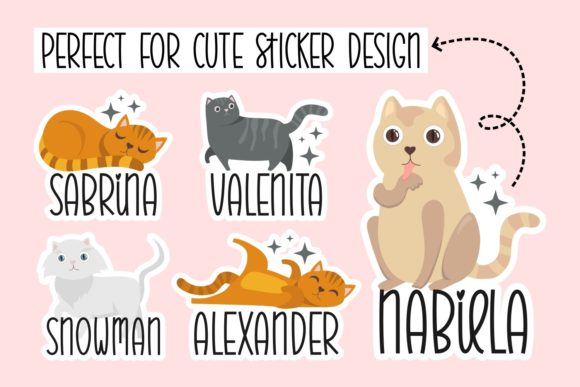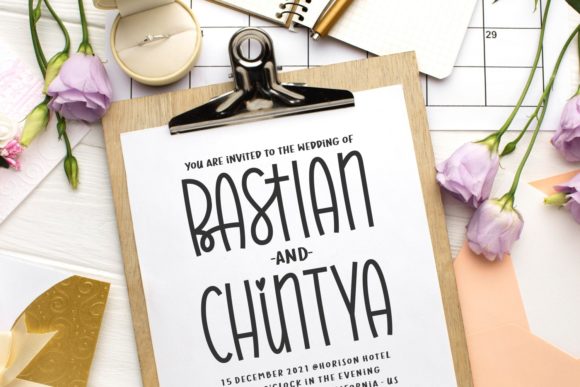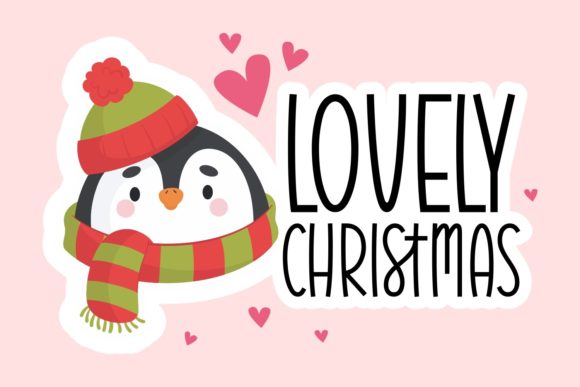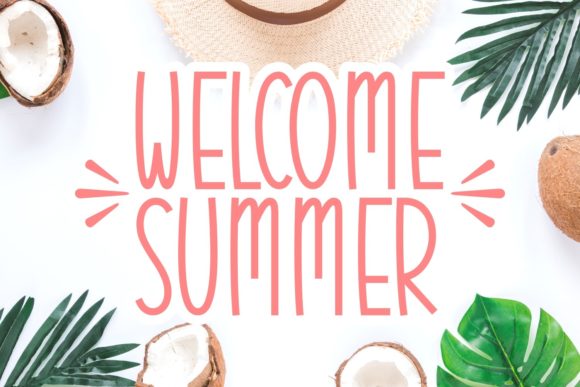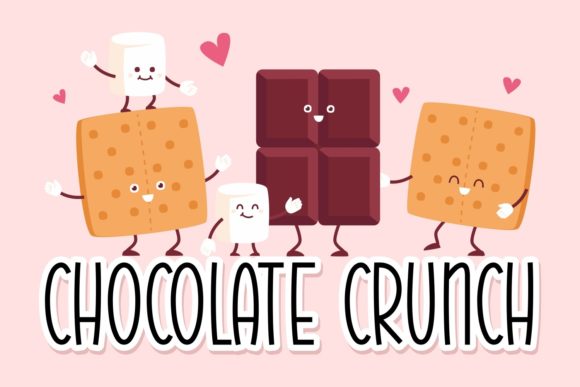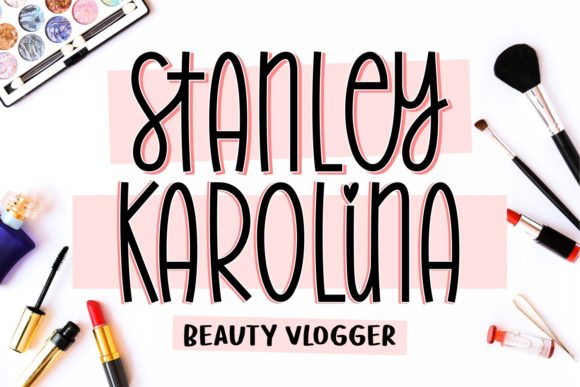
The Austin Bailey Font: A Simple yet Powerful Design Tool
I still remember the design project that led me to discover the Austin Bailey font. I was working on a branding project for a new coffee shop, and I was struggling to find the perfect font that would capture the friendly and approachable vibe of the brand. The client wanted something simple, yet elegant, and I was determined to deliver. That’s when I stumbled upon Austin Bailey, a simple and thin lettered handwritten font that instantly resonated with me.
So, what makes Austin Bailey so special? Here are a few things I love about this font:
- ✨ Simplicity: Austin Bailey’s clean lines and minimalist design make it perfect for a wide range of design projects.
- ✅ Versatility: This font is adaptable and can be used for everything from logos and branding to social media graphics and blog posts.
- 💕 Friendliness: Austin Bailey has a warm and approachable feel that adds a touch of personality to any design.
Of course, no font is perfect, and Austin Bailey has a few quirks:
- 🤔 Limited embellishments: While Austin Bailey is a beautiful font on its own, it may not be the best choice if you’re looking for a font with intricate embellishments or flourishes.
- ⚠️ Legibility at small sizes: Like many thin lettered fonts, Austin Bailey can be a bit tricky to read at very small sizes.
The Story Behind Austin Bailey
Austin Bailey was designed with the goal of creating a simple, yet elegant font that would add a touch of personality to any design. The font’s creator was inspired by the beauty of handwritten letters and the need for a font that was both clean and approachable.
| Is Austin Bailey suitable for body text? | While Austin Bailey is a beautiful font, it may not be the best choice for body text due to its thin lettering and potential legibility issues at small sizes. |
| Is Austin Bailey a script font? | No, Austin Bailey is a handwritten font, but it’s not a traditional script font. |